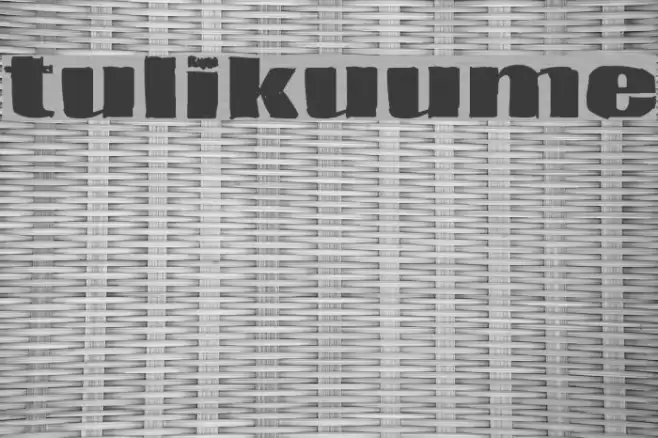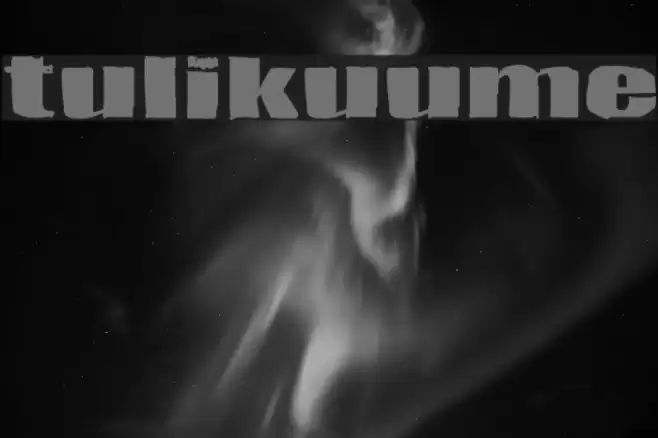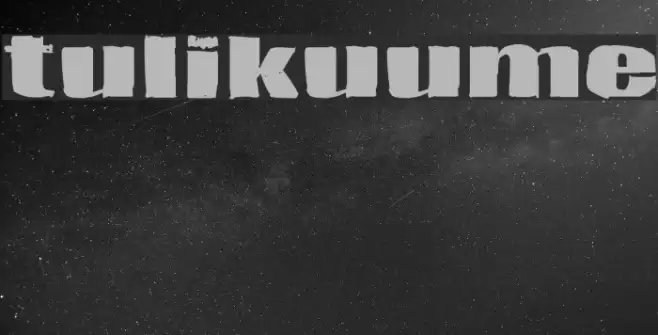
Tulikuume Font
Tulikuume Description
This font features a bold, distressed style with a rugged and textured appearance. The characters are heavily weighted, giving them a strong presence. The edges are rough and uneven, contributing to a grunge or urban aesthetic. This style is reminiscent of worn-out stencils or graffiti, making it ideal for designs that require a raw and edgy look. The uppercase and lowercase letters maintain a consistent boldness, while the numbers and special characters follow the same distressed theme. The overall impression is one of strength and impact, suitable for attention-grabbing headlines or artistic projects.
A bold, distressed font with a rugged, textured appearance from Distorted Eroded fonts.
- Proposed Projects: Ideal for posters, album covers, streetwear branding, and urban-themed designs.
- Overall Style: Grunge, Urban